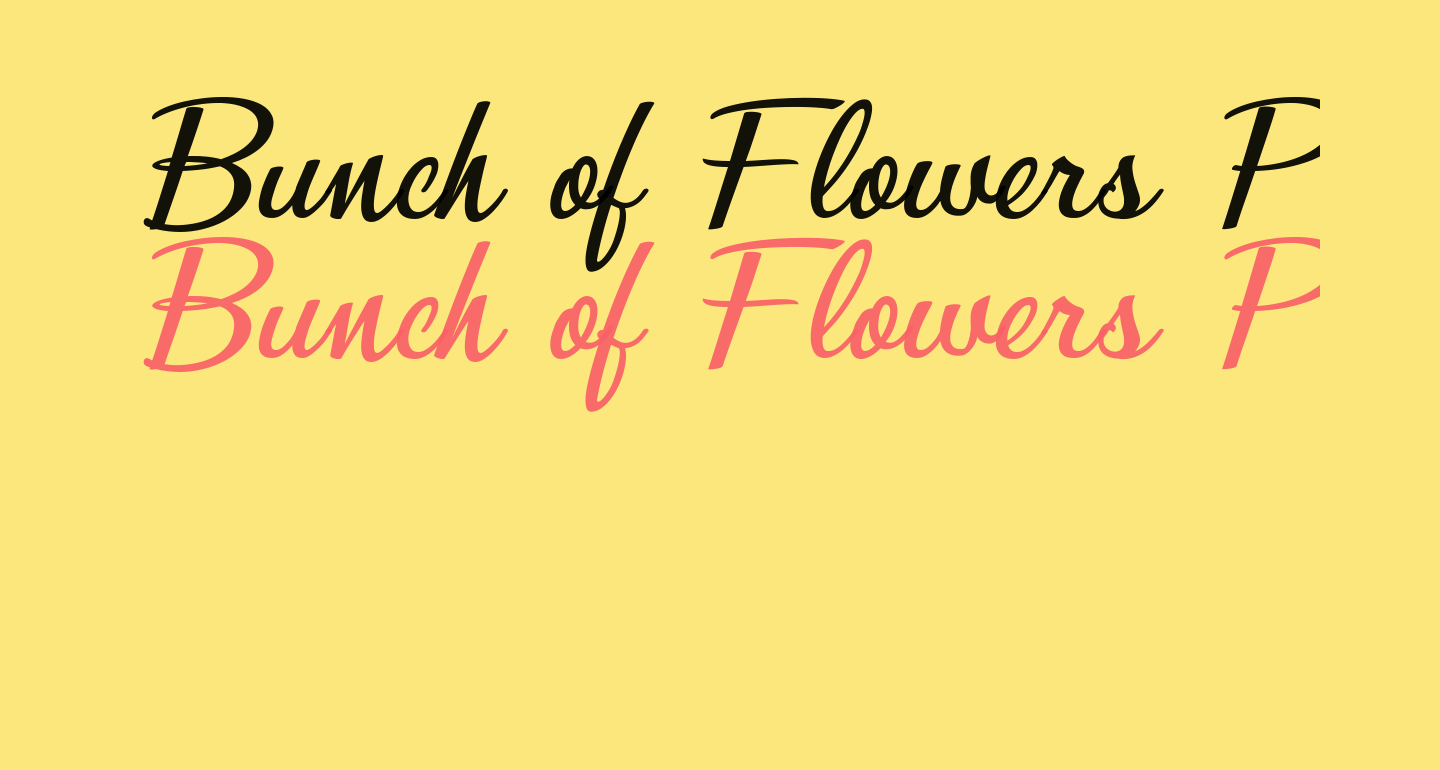
Bunch Of Flowers Font . Commercial licenses and complete set available @ billyargel.com more info contact:. This font is partial and free for personal use. Click now to create a custom image with your own words that you can download. Bunch of flowers personal use regular font by billy argel. This font has 1 variant available. Bunch of flowers is a script type font that can be used on any device such as pc, mac, linux, ios and android. Free download of bunch of flowers font. Experience the bunch of flowers personal use regular font on windows, mac, and linux with our instant preview feature. This font is partial and free for personal use. File script name bunch of flowers personal use.ttf download free for personal use. Download bunch of flowers personal use font · free for personal use · by billy argel /billy argel fonts (copyright) free for personal use only.
Bunch Of Flowers Font This font is partial and free for personal use. Bunch of flowers is a script type font that can be used on any device such as pc, mac, linux, ios and android. This font is partial and free for personal use. Click now to create a custom image with your own words that you can download. This font has 1 variant available. Bunch of flowers personal use regular font by billy argel. Experience the bunch of flowers personal use regular font on windows, mac, and linux with our instant preview feature. File script name bunch of flowers personal use.ttf download free for personal use. Free download of bunch of flowers font. Download bunch of flowers personal use font · free for personal use · by billy argel /billy argel fonts (copyright) free for personal use only. Commercial licenses and complete set available @ billyargel.com more info contact:. This font is partial and free for personal use.
Flower Font Fancy Decorative alphabet (527570) Bunch Of Flowers Font This font is partial and free for personal use. Commercial licenses and complete set available @ billyargel.com more info contact:. This font is partial and free for personal use. File script name bunch of flowers personal use.ttf download free for personal use. Bunch of flowers personal use regular font by billy argel. This font has 1 variant available. Download bunch. Bunch Of Flowers Font.
Bunch Of Flowers Font FREE Download & Similar Fonts FontGet Bunch Of Flowers Font This font is partial and free for personal use. Download bunch of flowers personal use font · free for personal use · by billy argel /billy argel fonts (copyright) free for personal use only. Bunch of flowers is a script type font that can be used on any device such as pc, mac, linux, ios and android. Experience the bunch. Bunch Of Flowers Font.
Bunch of Flowers Font free download Bunch Of Flowers Font This font is partial and free for personal use. Experience the bunch of flowers personal use regular font on windows, mac, and linux with our instant preview feature. Click now to create a custom image with your own words that you can download. File script name bunch of flowers personal use.ttf download free for personal use. Bunch of flowers is. Bunch Of Flowers Font.